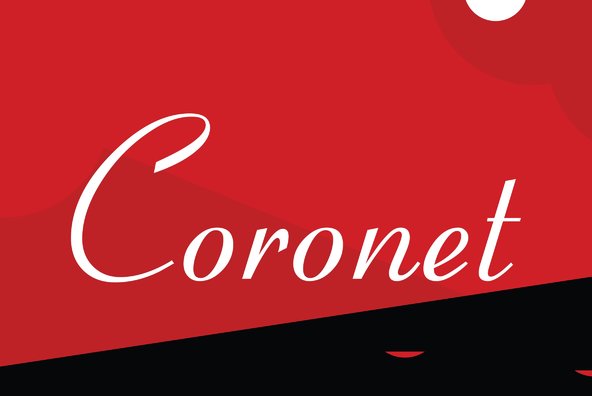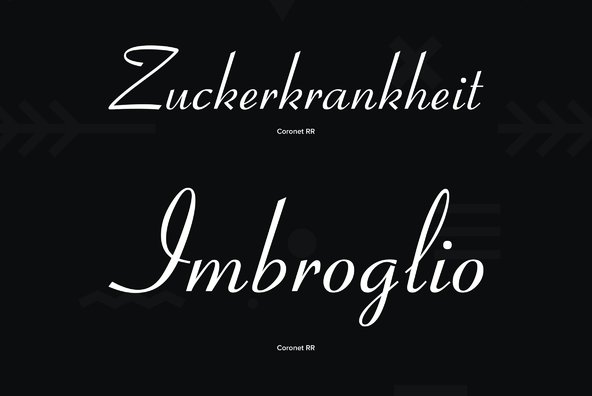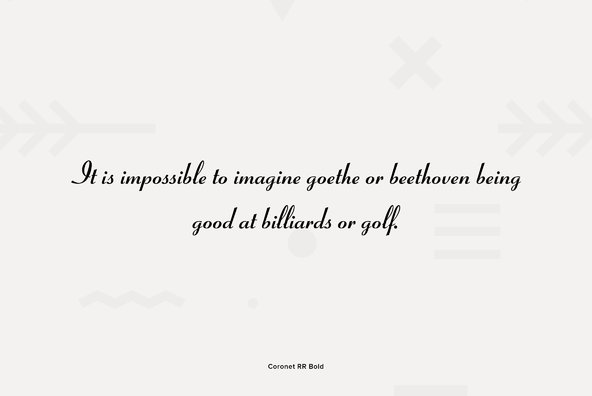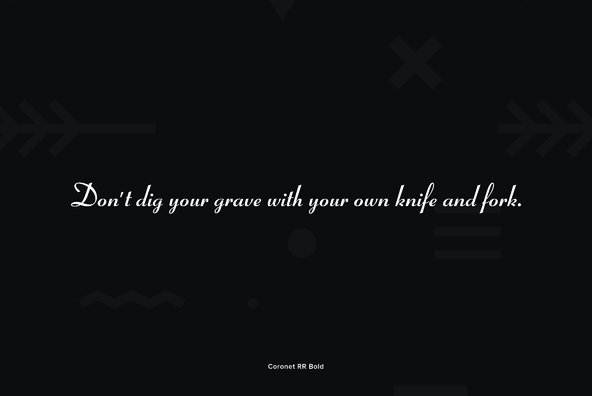
Coronet
Designed by R.H. Middleton for Ludlow (1937), Coronet is a script font that was digitally engineered by Steve Jackaman for the Red Rooster Collection.